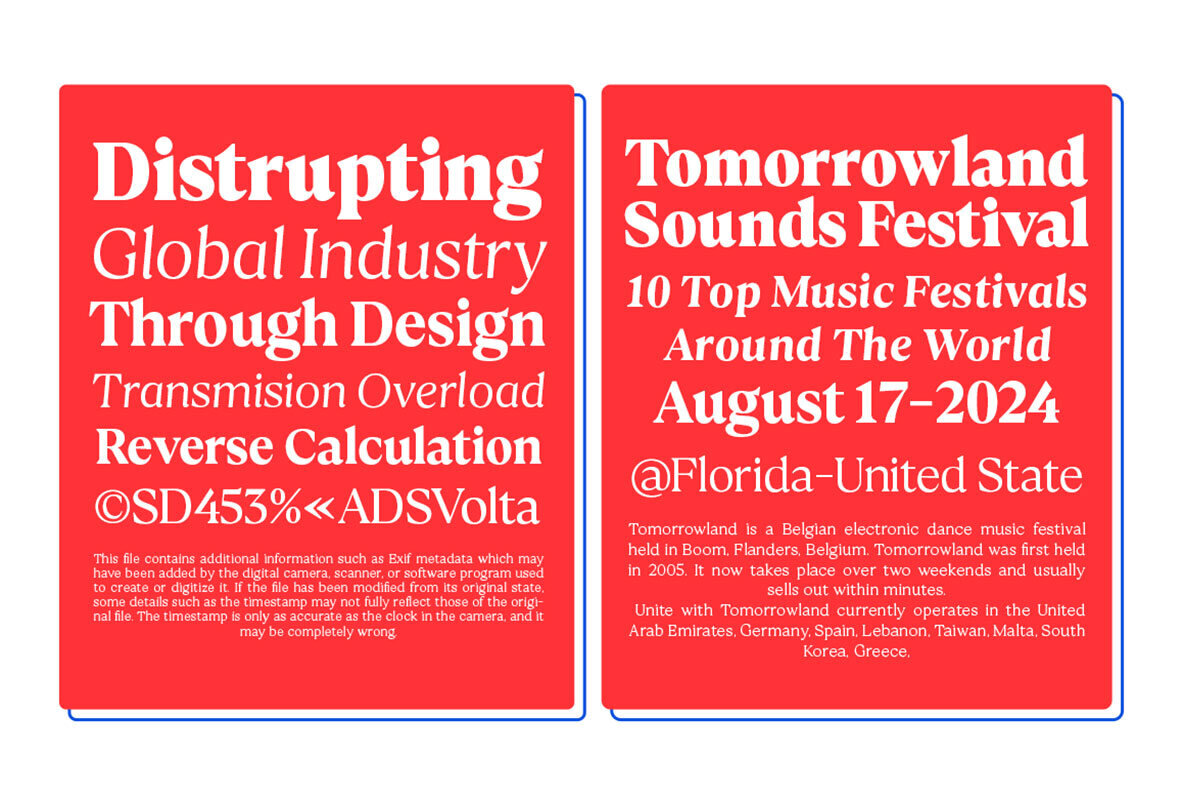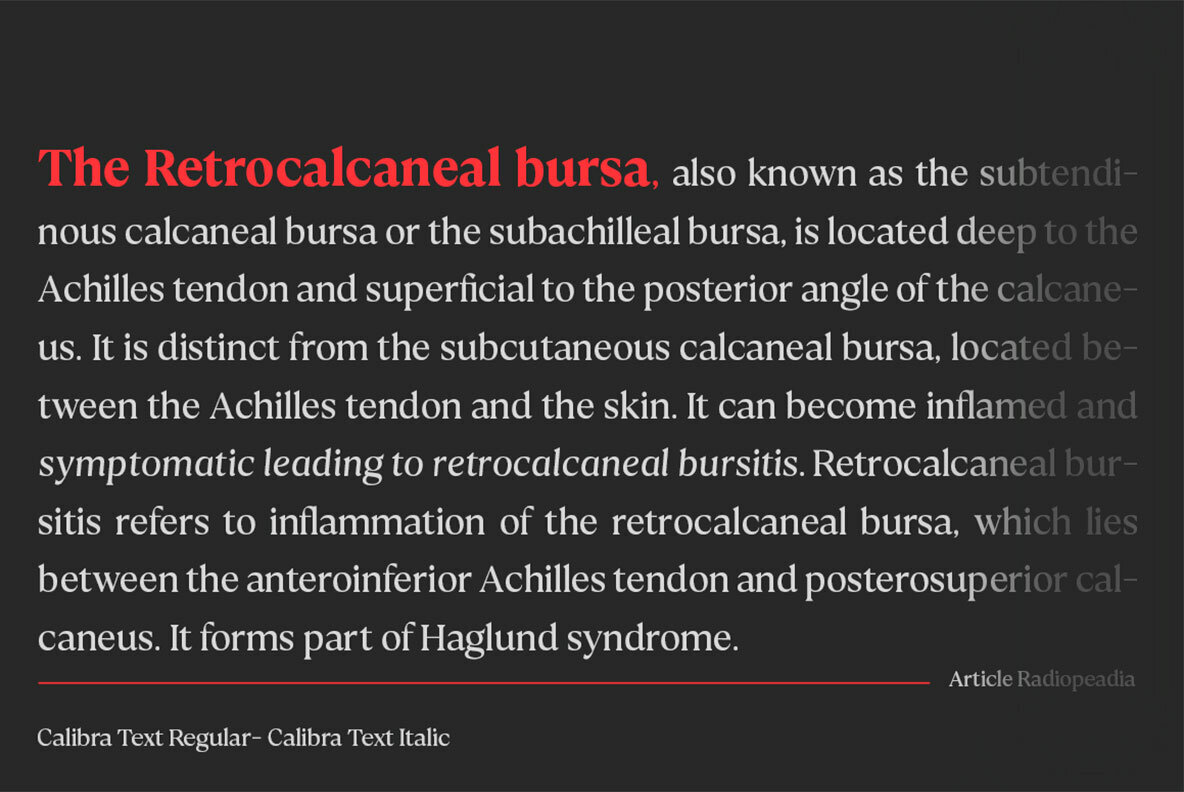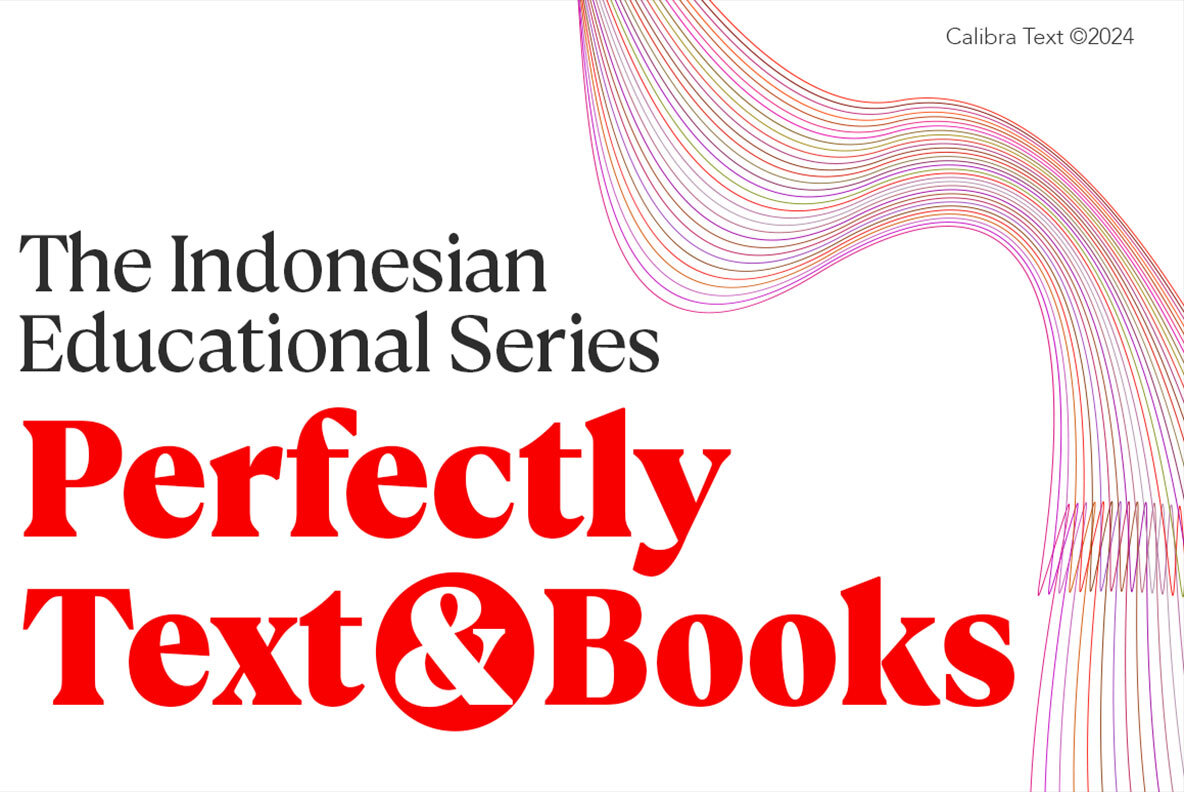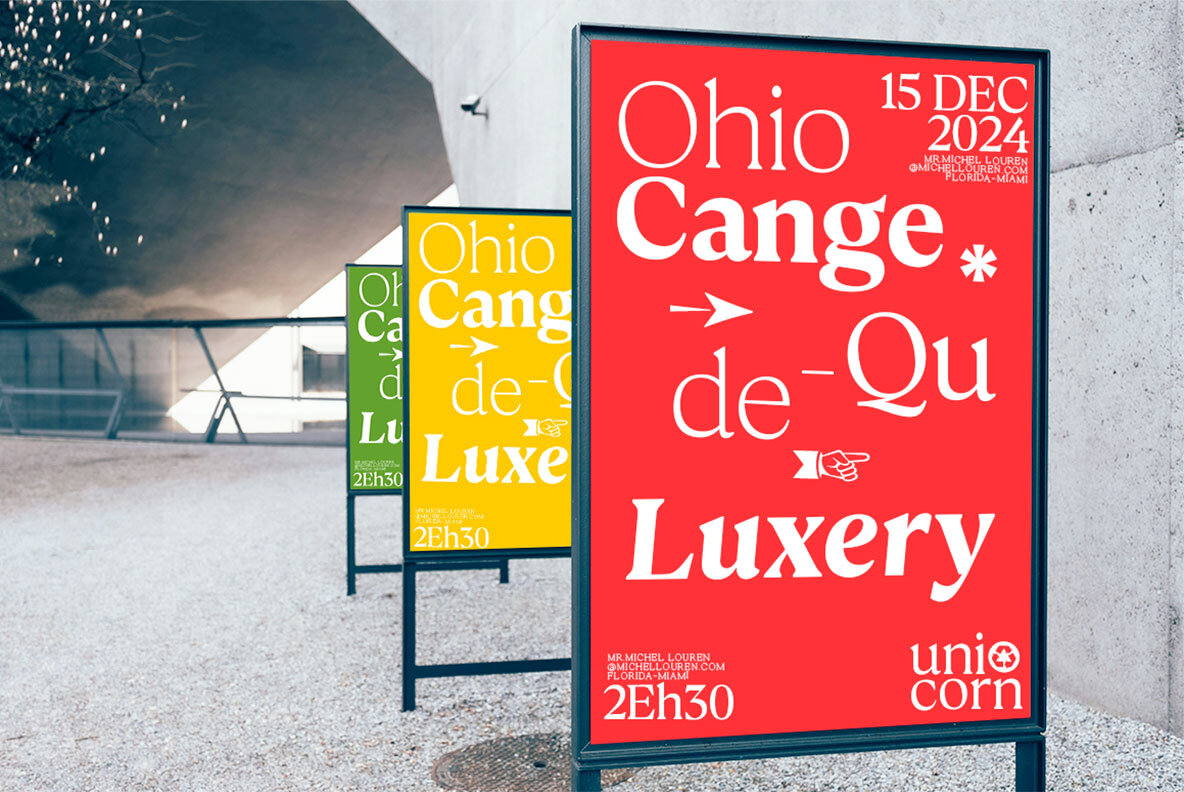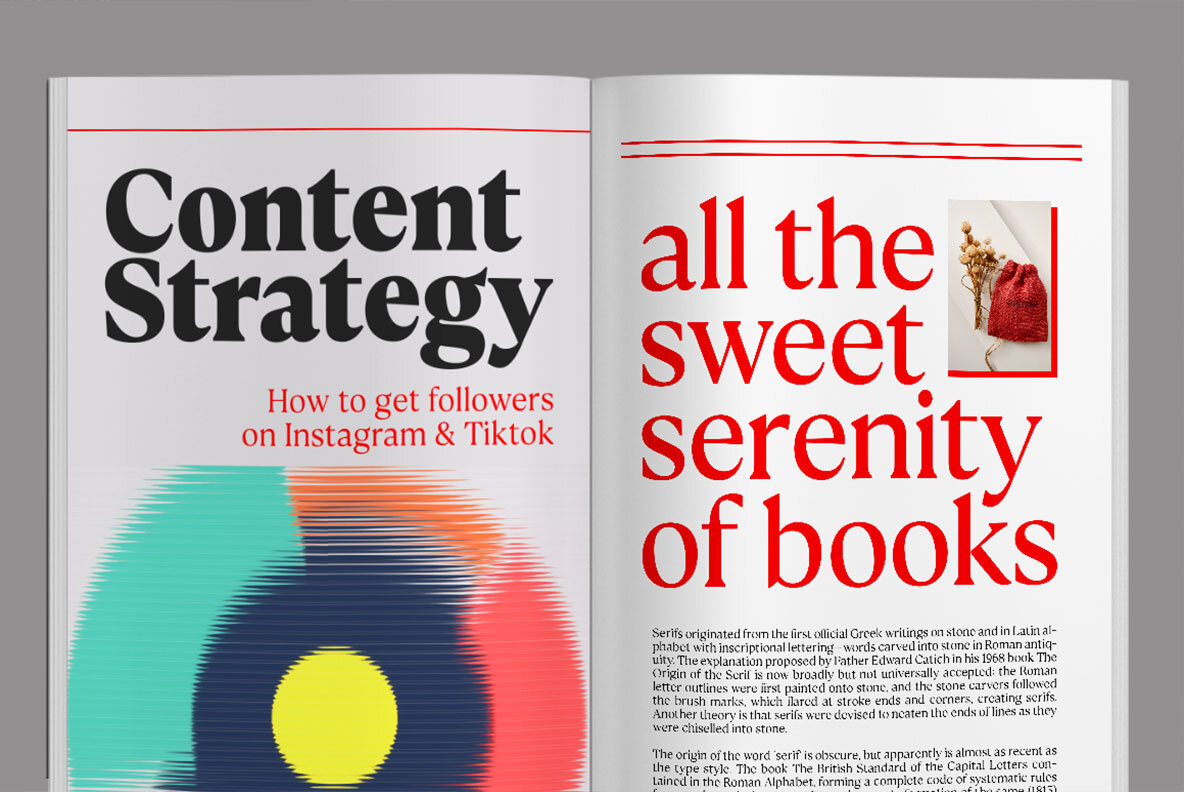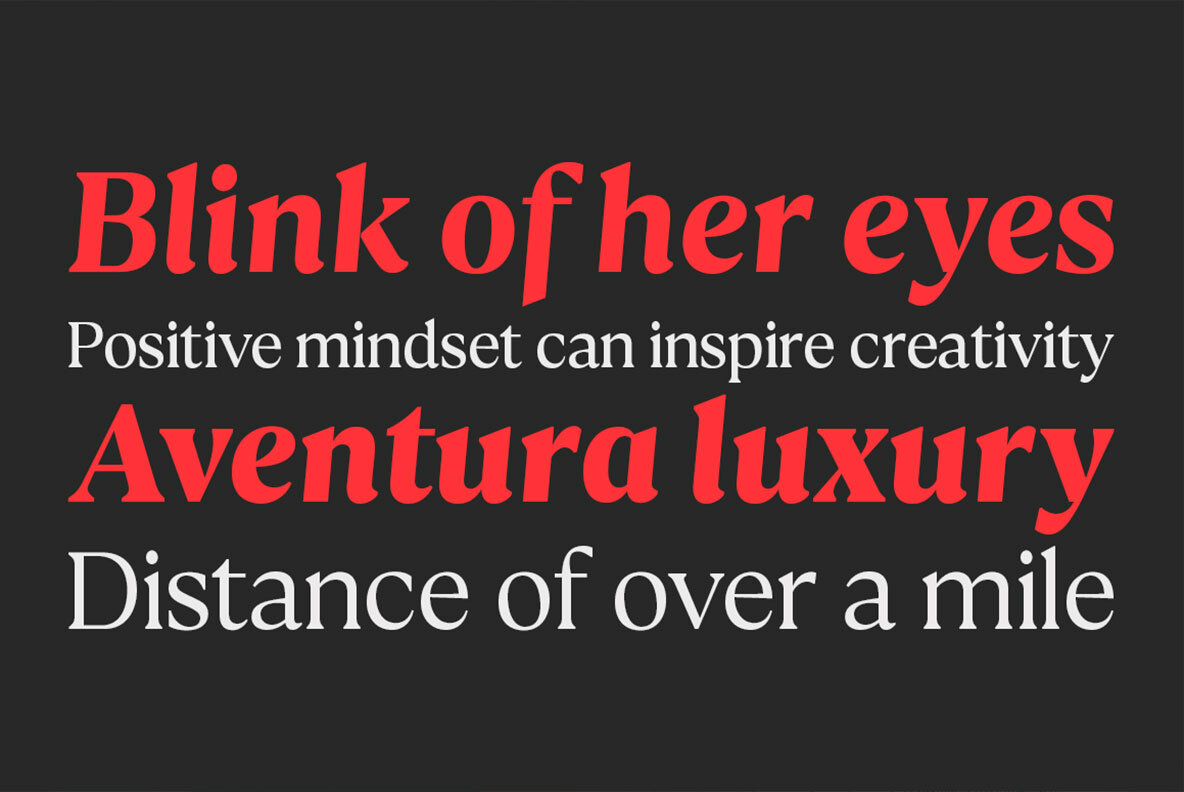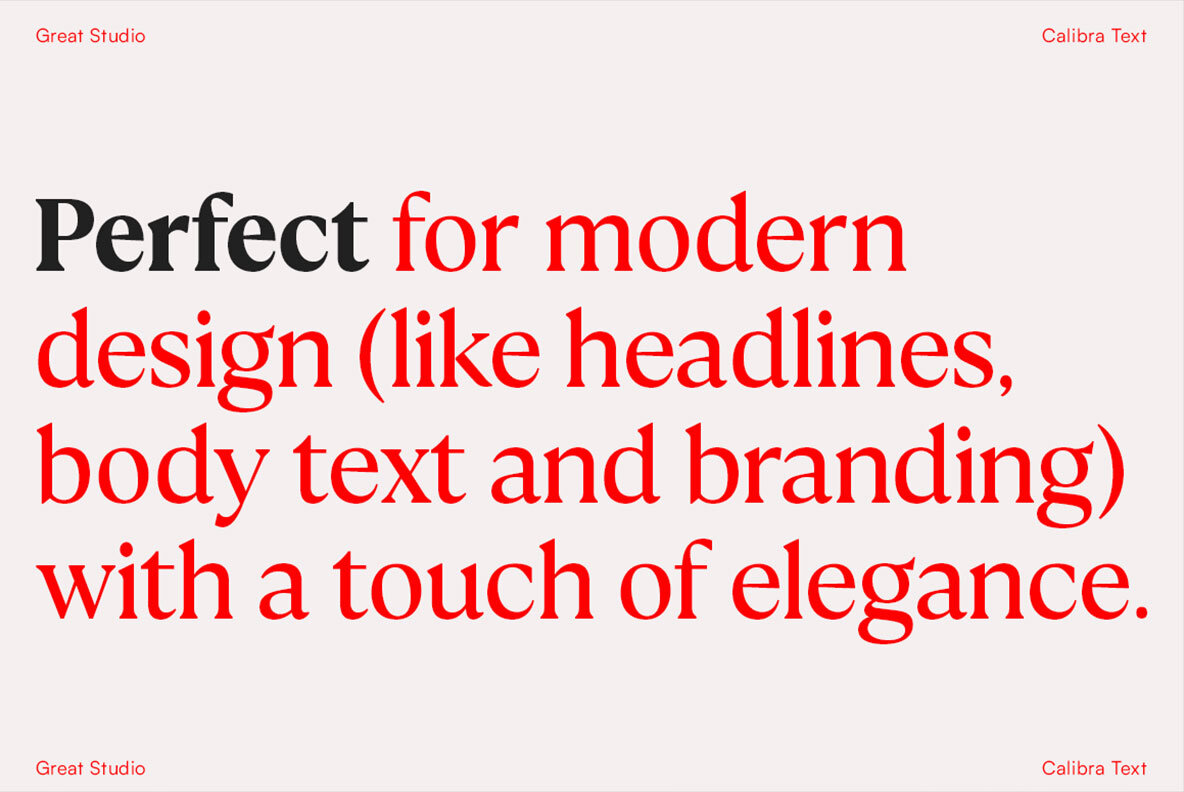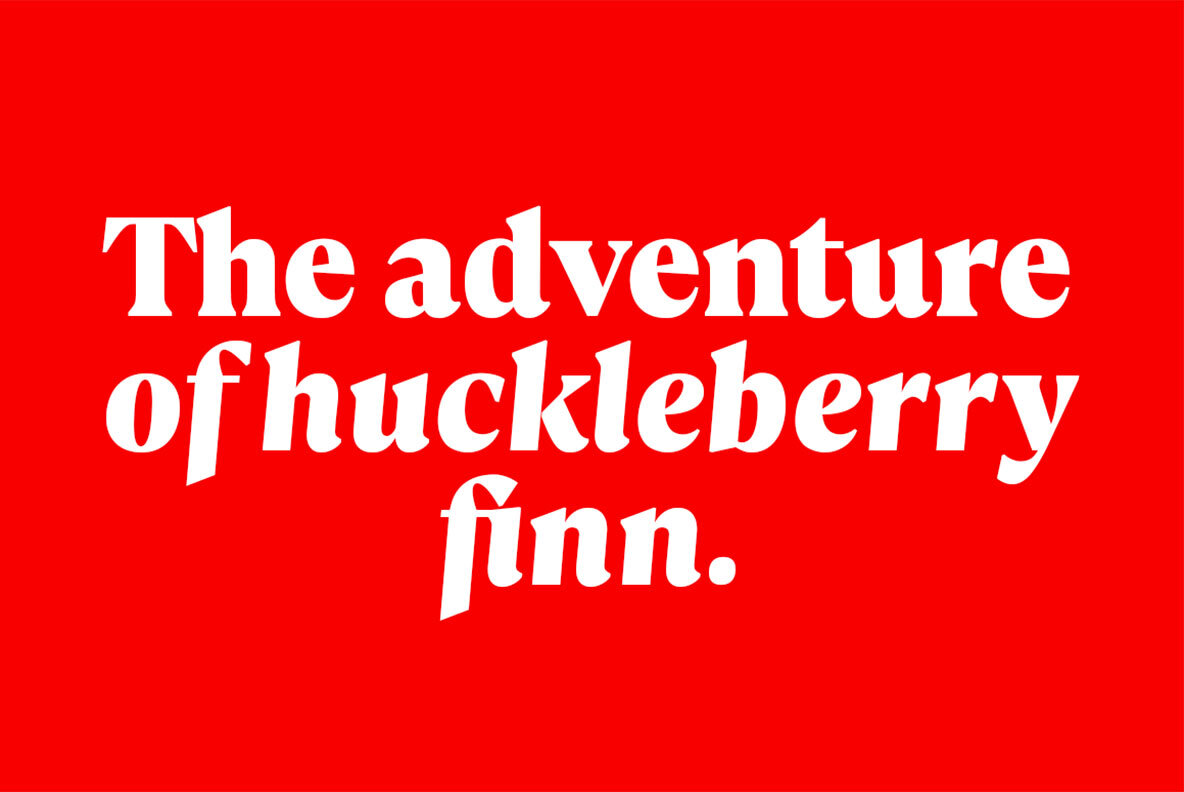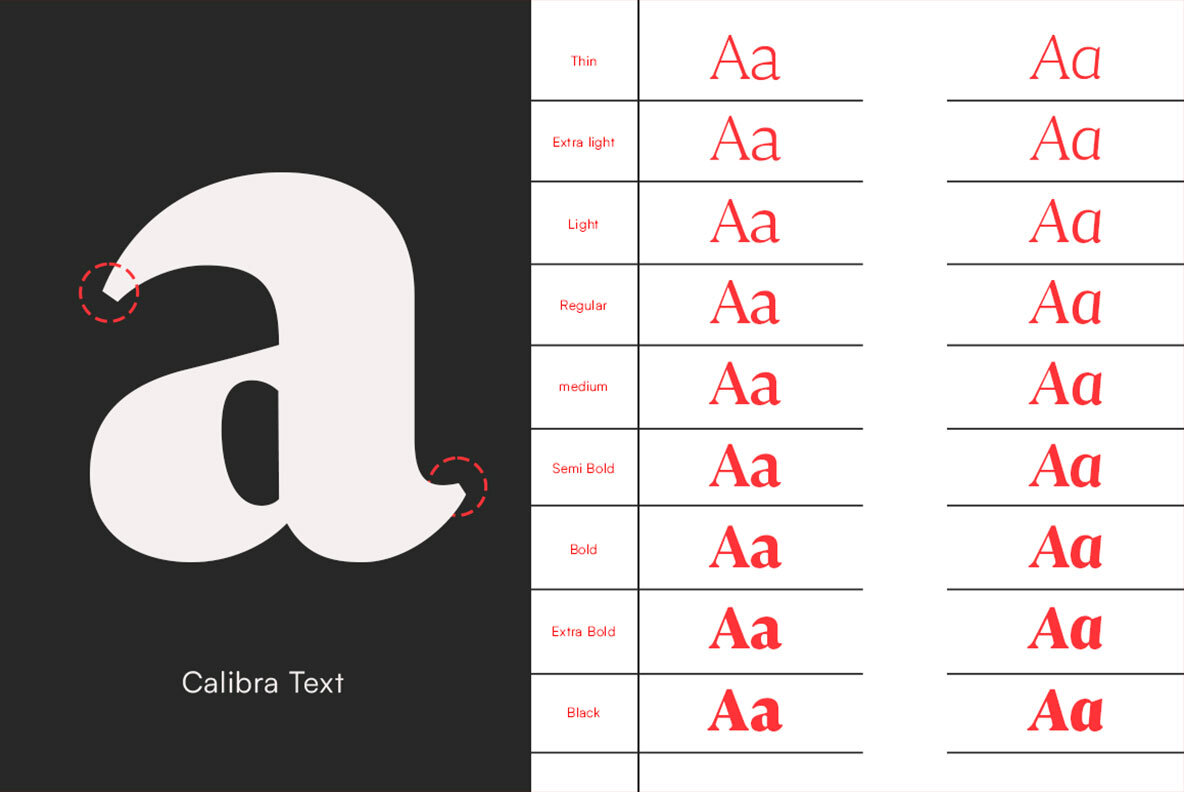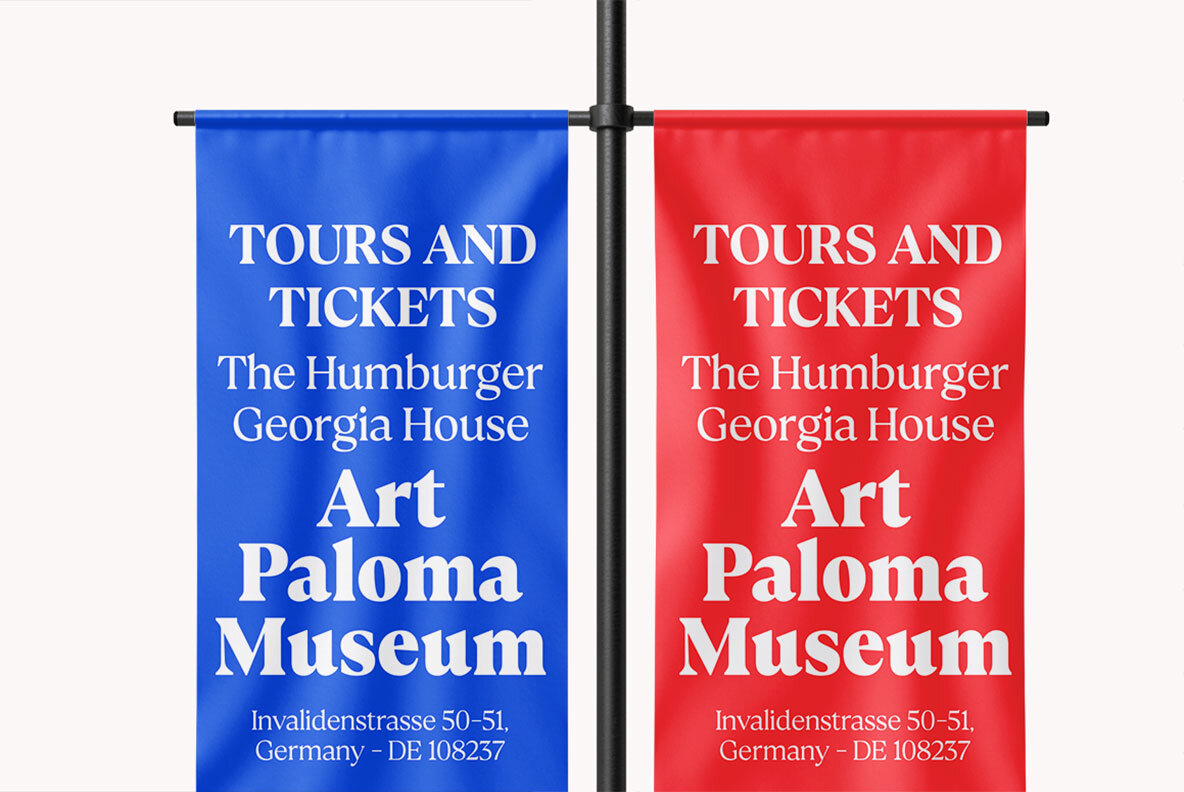
Calibra Text Font
Calibra Text is a high-contrast typography inspired by transitional and contemporary typography. Fonts extend their use by giving weights ranging from thin to black. The natural curve, a swollen and sloping stem, grows in character as the font gains weight. While the thinner weight has lowered contrast and optical correction to create a warm and soft look. Featuring beautiful italics, excellent weight and extensive language support. Calibra Text excels in display settings such as headlines, titles, branding projects, Logo design, packaging, magazine headings, advertising, short or long text. Calibra Text also comes with two versions of Variable Regular and Italic to make it easier for designers to explore and perfect beautiful designs, unearthing lots of visual tones and hidden secrets.